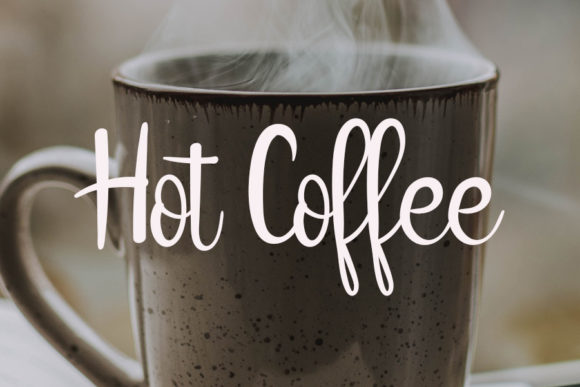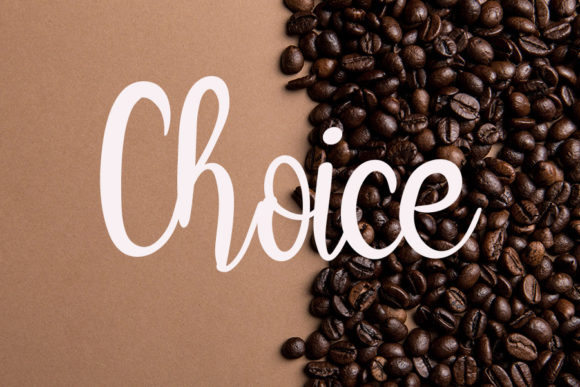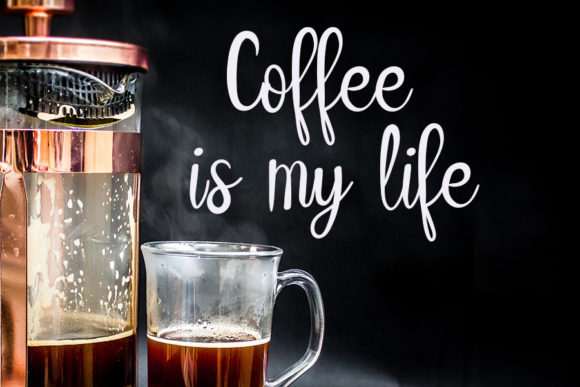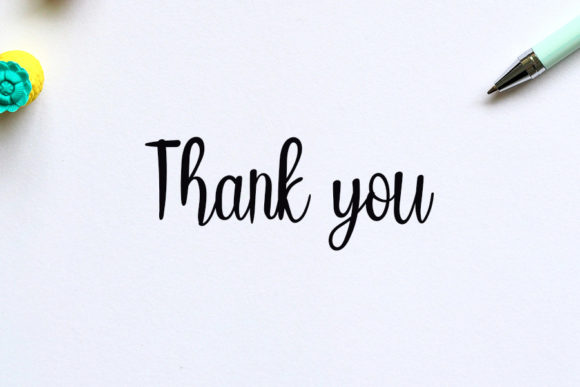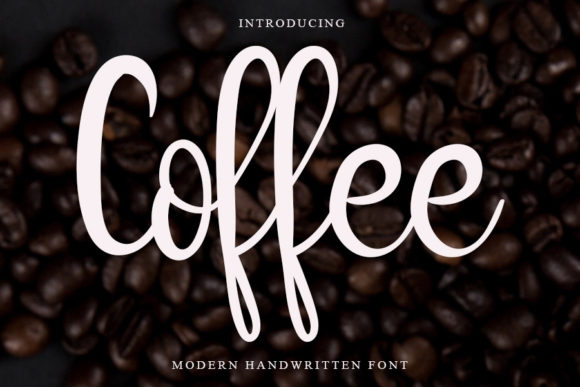
Coffee Font: Elevate Your Designs with Elegant Handwritten Style
Are you looking for a font that adds a touch of sophistication and modernity to your projects? Look no further than Coffee Font, an exquisite handwritten font that embodies the perfect blend of classic calligraphy and contemporary flair. Inspired by timeless elegance, Coffee Font is designed to bring a new level of refinement to your designs, making it an ideal choice for crafters and designers alike.
The Story Behind Coffee Font
Coffee Font is more than just a collection of letters; it’s a carefully crafted typeface that exudes balance, harmony, and versatility. Its creator aimed to produce a font that was neither too thin nor too thick, but rather a perfect medium that would offer impeccable form and a wide range of applications. Whether you’re working on a branding project, a wedding invitation, or a packaging design, Coffee Font promises to enhance the beauty of your work with its elegant strokes and contemporary atmosphere.
Key Features of Coffee Font
• Balanced and Varied: Coffee Font strikes the perfect balance between thickness and thinness, offering a varied and engaging visual experience.
• Elegant and Modern: With its roots in classic calligraphy, Coffee Font brings an air of timeless elegance to your designs while maintaining a modern and fresh feel.
• Versatile: From digital media to print, Coffee Font adapts seamlessly across different platforms and applications.
• Handwritten with Love: Each letter is crafted with precision and care, giving the font a personal and unique touch.
Why Choose Coffee Font?
In a world where fonts are plentiful and often generic, Coffee Font stands out with its distinctive character and high-quality design. Here are a few reasons why designers and crafters are gravitating towards this beautiful typeface:
• Enhances Readability: Despite its elegant and sometimes intricate strokes, Coffee Font remains highly readable, making it perfect for both headings and body text.
• Unique Projects: If you’re looking to create something that stands out from the crowd, Coffee Font’s unique flair can help you achieve just that.
• Time-Saving: With Coffee Font, you can achieve professional-looking results without spending hours on custom lettering.
Using Coffee Font in Your Projects
Integrating Coffee Font into your workflow is straightforward. Here are some ideas to get you started:
• Branding and Logos: Use Coffee Font to create a memorable brand identity that exudes elegance and sophistication.
• Wedding and Event Invitations: Add a touch of luxury and romance to your invitations and event materials.
• Packaging: Stand out on store shelves with packaging that features beautiful, hand-crafted typography.
• Digital Media: From social media graphics to website headers, Coffee Font can elevate your digital content.
Coffee Font is more than just a font; it’s a design tool that can transform your projects with its elegant handwritten style and contemporary vibe. Whether you’re a professional designer or a DIY crafter, Coffee Font offers the perfect blend of beauty, versatility, and functionality. By incorporating Coffee Font into your designs, you’re not just choosing a typeface; you’re elevating your work to a new level of sophistication and appeal. So, why wait? Discover the beauty of Coffee Font today and take your designs to new heights!